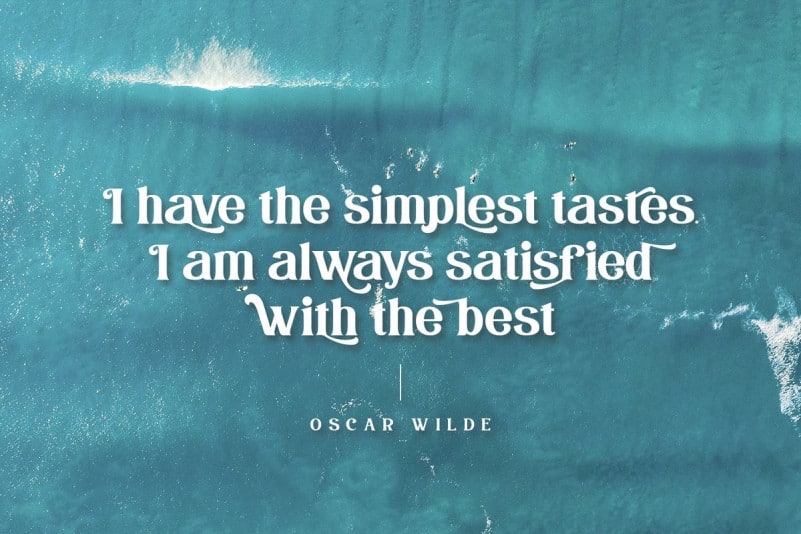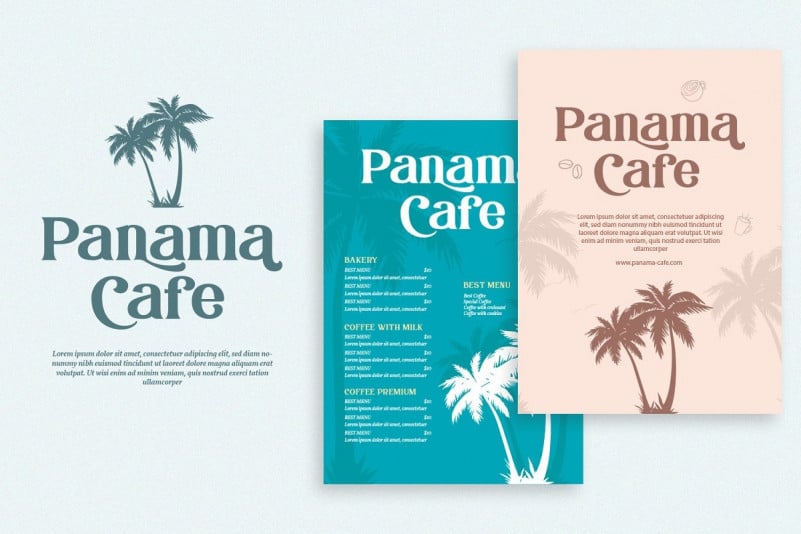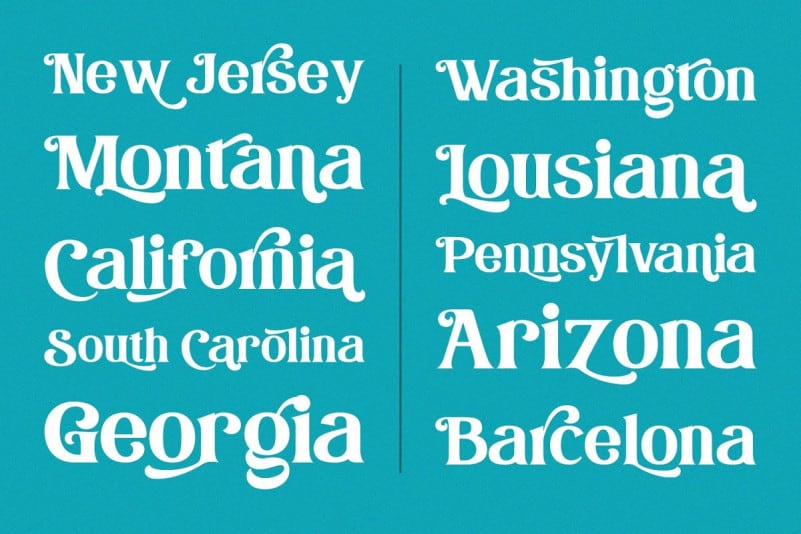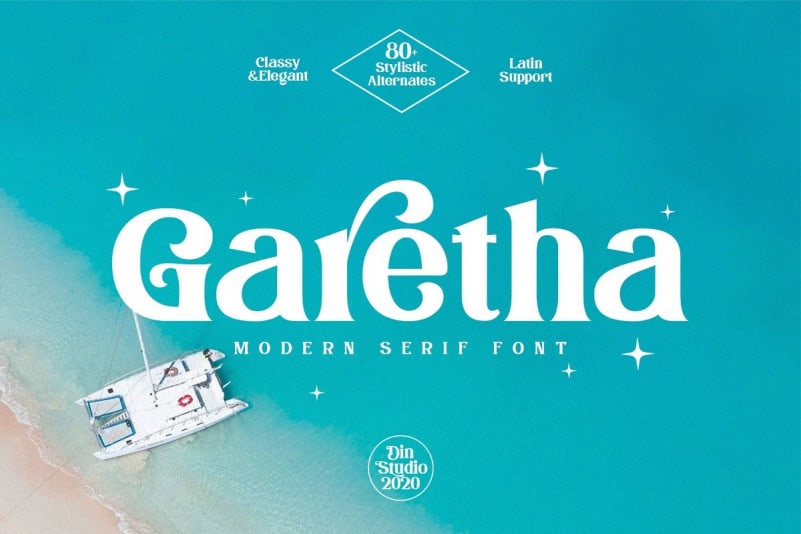
Introducing Garetha Font – a contemporary, elegant and fashionable serif font. It is a unique, trendy font packed with interesting character and ligatures to give your designs a completely fresh and high-end look. Made for any professional project branding. Garetha Serif Font is the best for branding, printing, wedding and quotes. Every letter has a unique and beautiful touch.